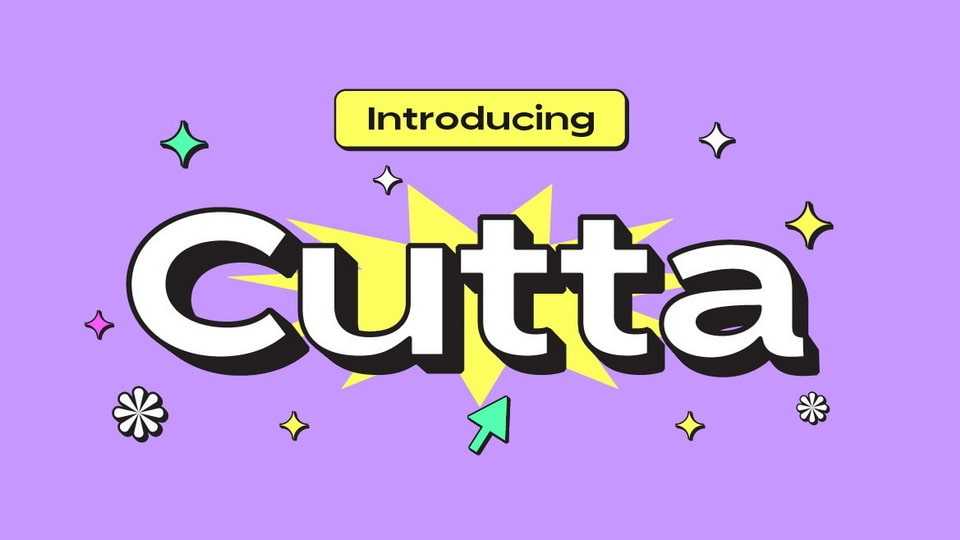
Download Cutta font, a modern sans serif typeface that comes in a variety of font styles, providing unlimited flexibility in expressing creativity.
Designer: Yukita Creative